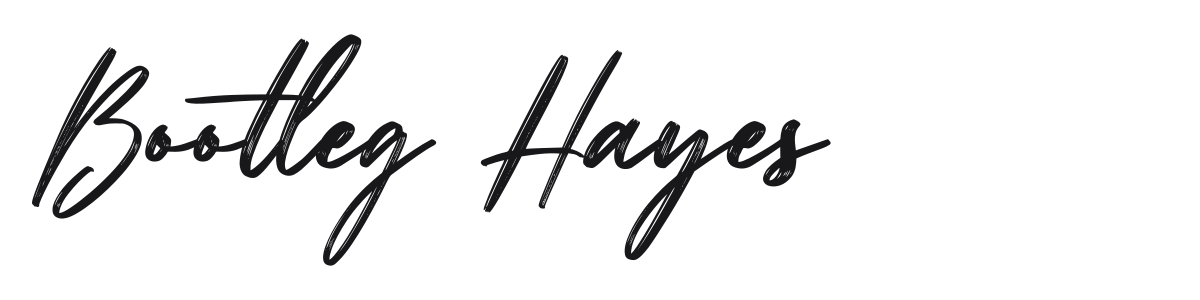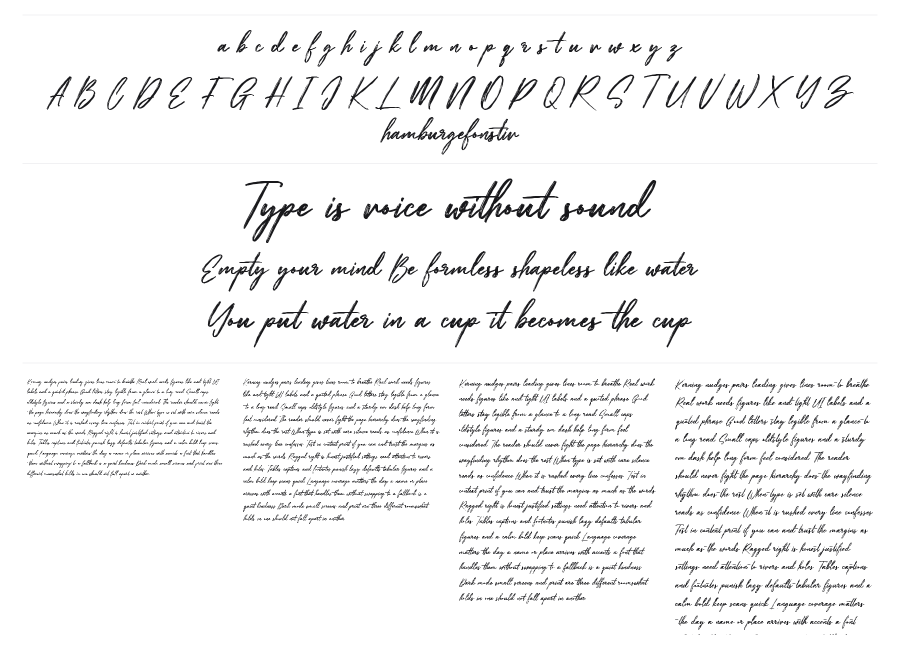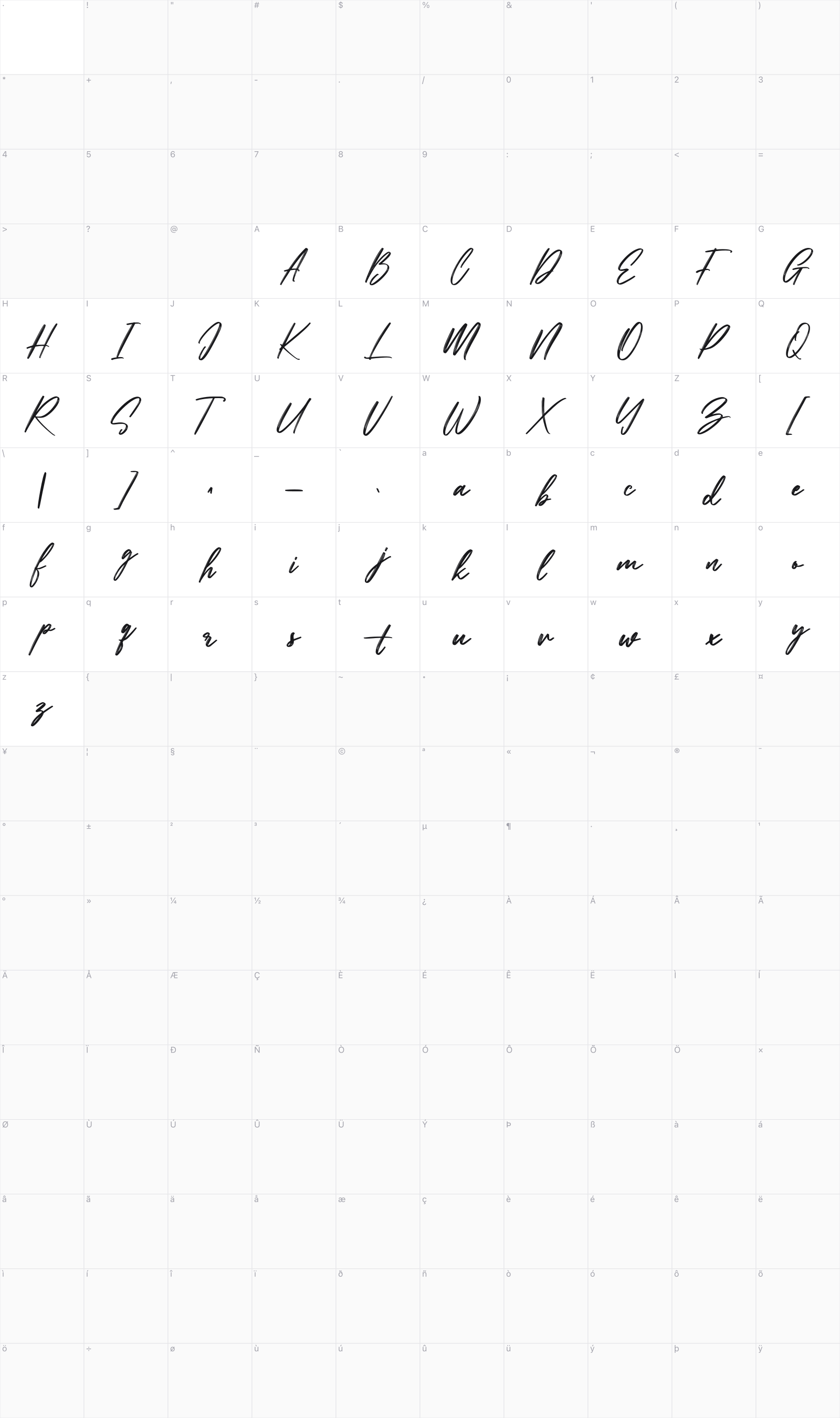
Bootleg Hayes
Bootleg Hayes is a casual brush script with loose, flowing strokes and an authentic hand-painted energy. The connected letters move at a natural rightward tilt, with fluid linking strokes that keep the rhythm lively without feeling forced. It channels mid-century sign-painting in a way that reads as contemporary and versatile across branding, packaging, and editorial contexts.